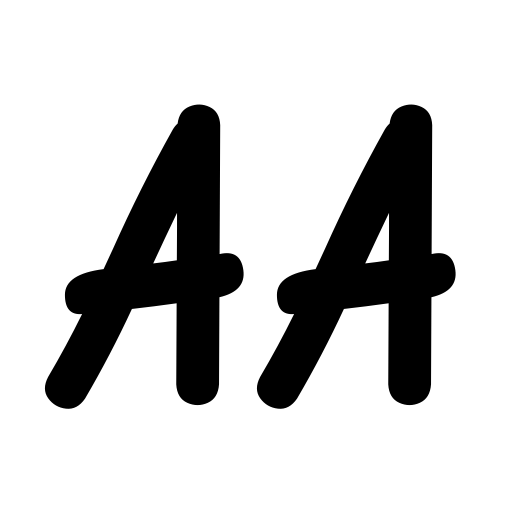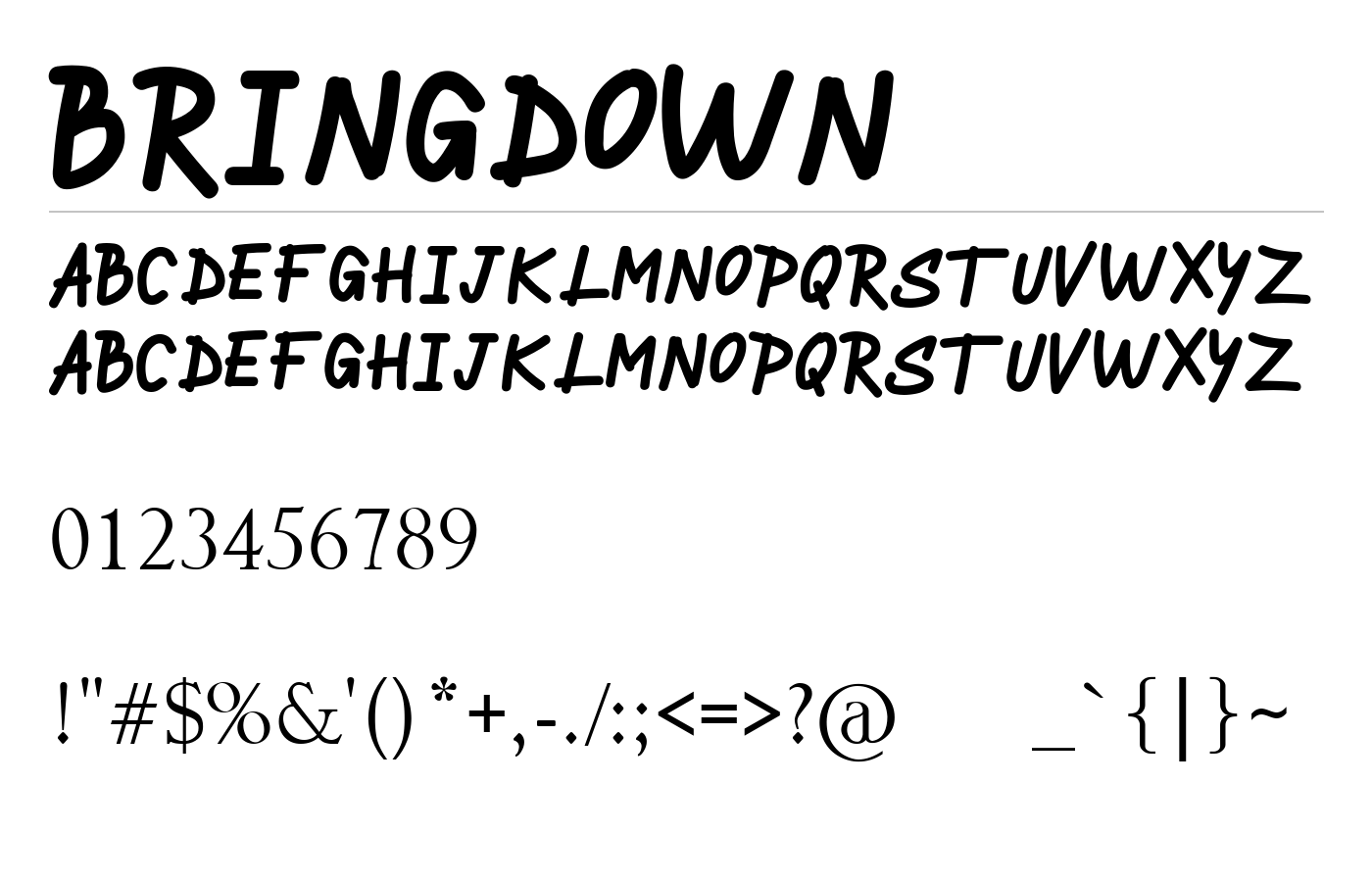
BRINGDOWN is a playful, casual handwritten font with a bold and rounded appearance, featuring smooth strokes and a friendly, informal vibe. Its slightly condensed letterforms and consistent weight make it ideal for creative designs that need a personal touch, such as logos, posters, or social media graphics. This font's approachable style is perfect for projects wanting to convey warmth and uniqueness without sacrificing readability.
BRINGDOWN Font
About BRINGDOWN Font